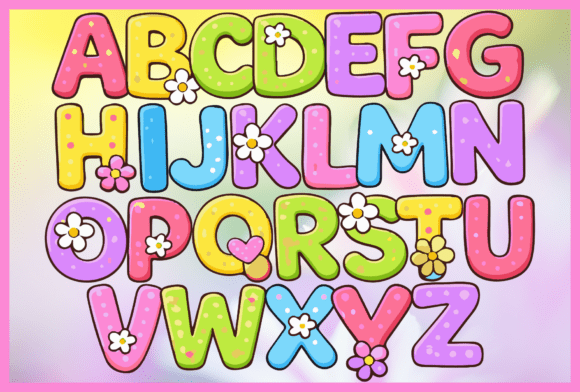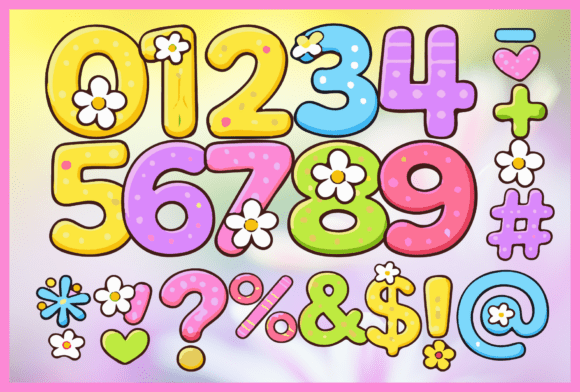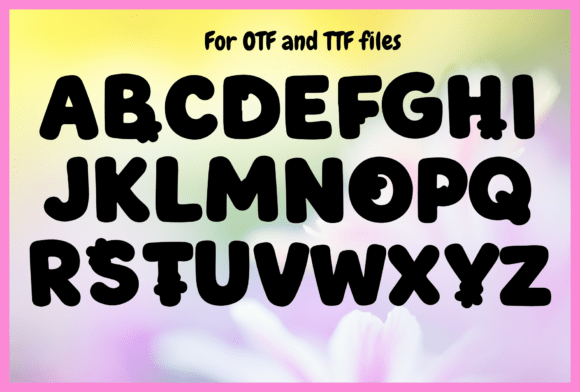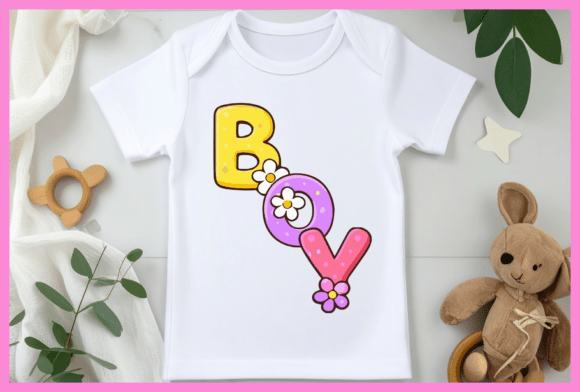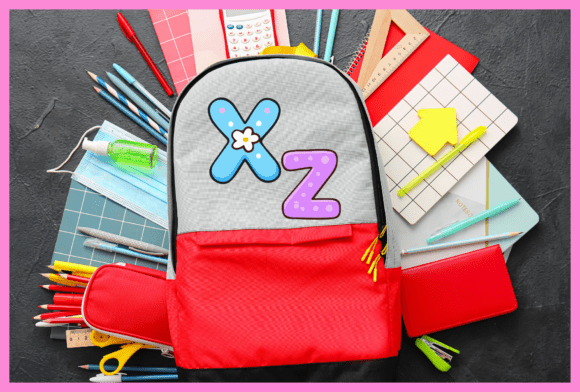
Introduction to Over the Lazy Font Font
Fonts play a crucial role in design, and the Over the Lazy Font font is a typeface that brings both character and versatility to any project. Whether you’re working on a branding project, a website, or a print design, the Over the Lazy Font font offers a unique style that can elevate your work.
Over the lazy, Add a touch of sweet spring charm to your creative projects with this adorable Cute Spring Flower Alphabet Font.
This playful pastel font features colorful bubble letters decorated with flowers, hearts, and fun shapes, making it perfect for childrenβs designs, classroom resources, and cheerful craft projects Each letter is designed in a soft pastel color palette with bold outlines and cute decorative elements inspired by the spring season.
Why Choose Over the Lazy Font Font?
The Over the Lazy Font font is more than just a typeface β it’s a design tool that helps you communicate your message with style and clarity. Its unique character set and versatile design make it suitable for a wide range of applications, from elegant invitations to bold headlines.
With its carefully crafted letterforms and balanced proportions, the Over the Lazy Font font ensures readability and visual appeal across all mediums.
What makes Over the Lazy Font font special?
The Over the Lazy Font font stands out with its unique design, exceptional readability, and versatility across various design applications.